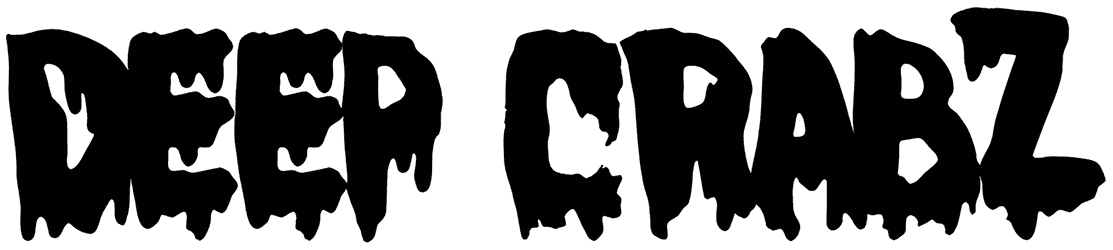
Peccatum is a versatile gem that not only looks amazing on spooky themes but is also great on music and sports concepts. This dripping font is inspired by the headlines of newspaper events and has bold irregularities that compensate well for the lack of small letters. The irregular geometric shapes of this splatter font make it versatile enough to be used outside of horror themes.
Peccatum
WOODCUTTER